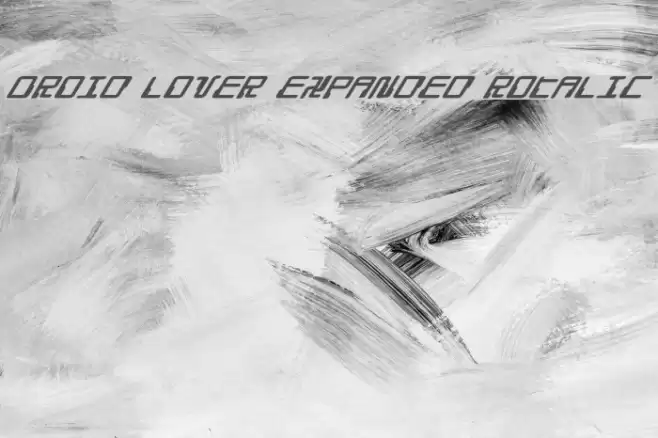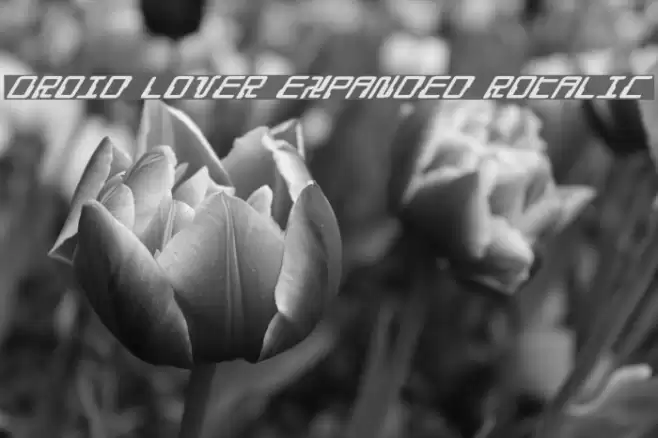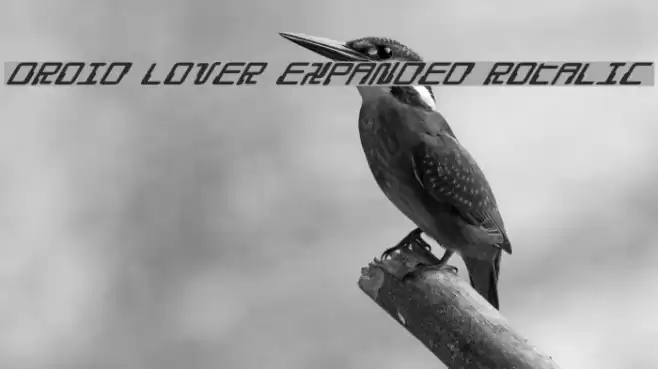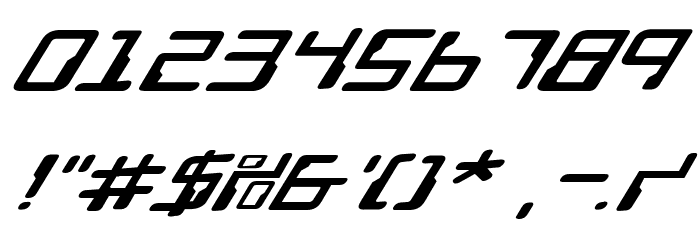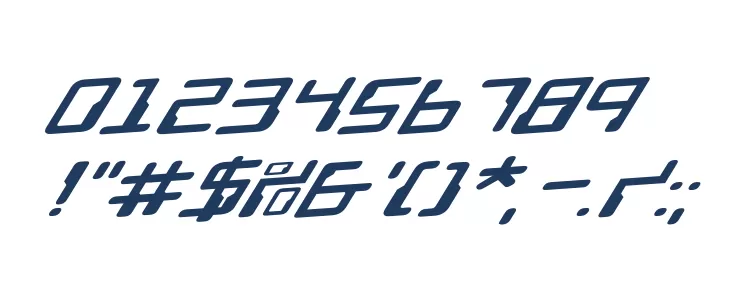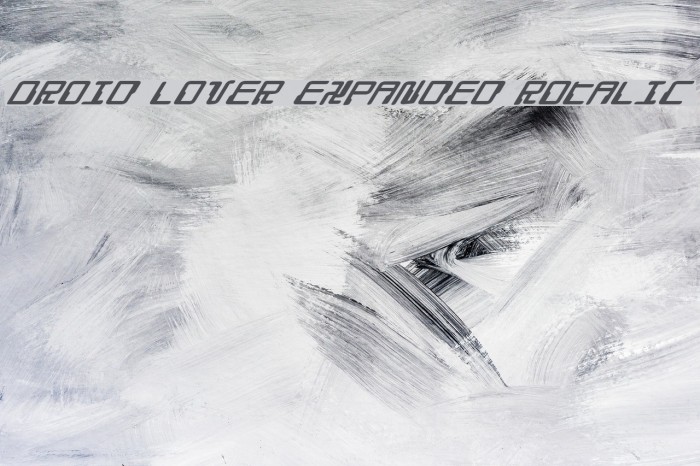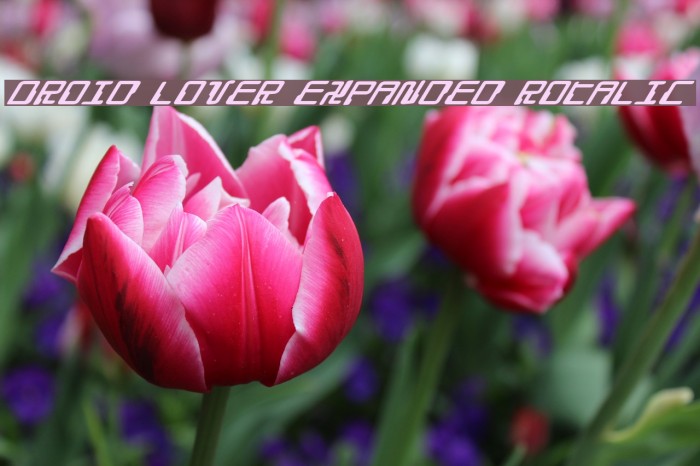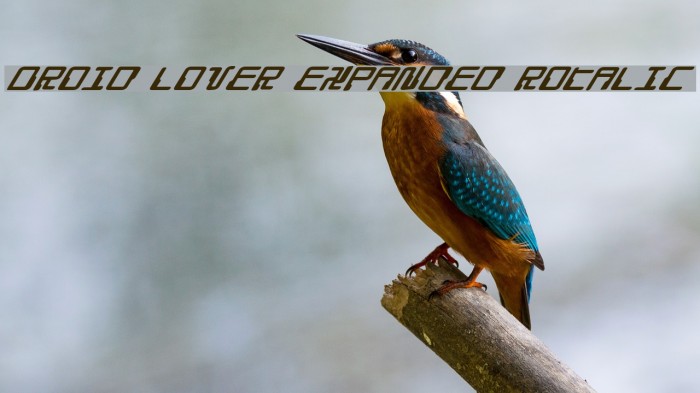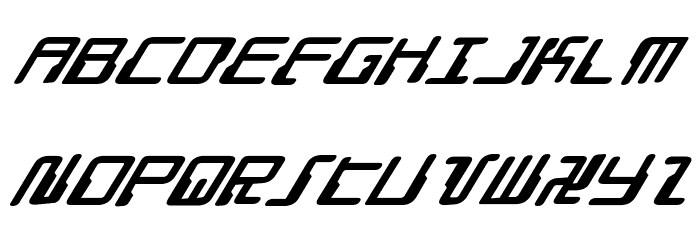
Droid Lover Expanded Rotalic Font
Droid Lover Expanded Rotalic Description
This font features a futuristic and dynamic design, characterized by its slanted, italicized style that gives a sense of motion and speed. The characters are expanded, providing a wide stance that enhances readability while maintaining a unique aesthetic. The strokes are consistent in weight, offering a medium contrast that balances boldness with clarity. Its geometric shapes and angular lines contribute to a modern and tech-inspired appearance, making it suitable for projects that require a cutting-edge look.
A futuristic, italicized font with expanded, geometric characters and medium contrast from Valentine's Day fonts.
- Proposed Projects: Ideal for technology branding, sci-fi themed designs, video game interfaces, and modern advertising campaigns.
- Overall Style: Futuristic